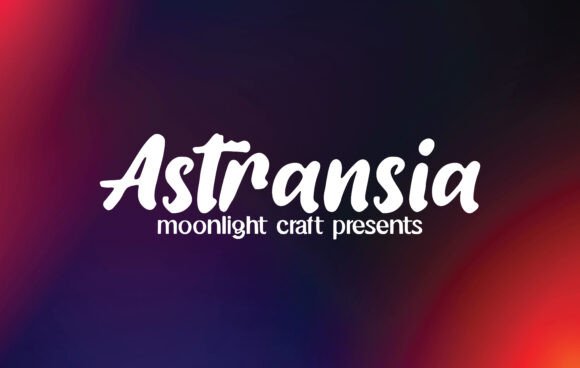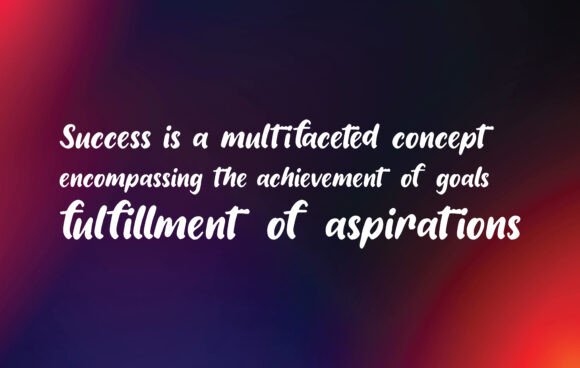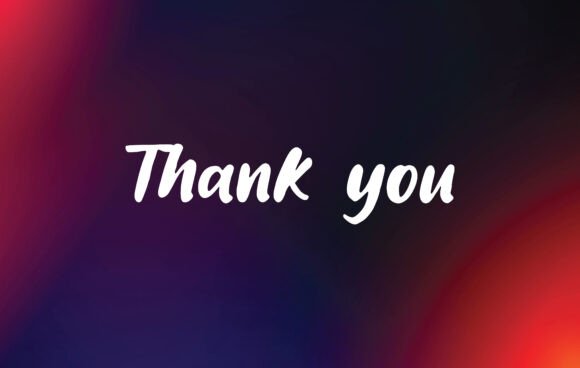
Astransia Font: A Beautiful Handwritten Script for Modern Branding
About the Astransia Font
Add a touch of class to your work with the Astransia Font, a truly exceptional typeface. Astransia is a lovely and beautiful handwritten font.This font has the potential to take your creative ideas to the highest level.It is the best choice for creating eye catching logos, branding and quotes.
Astransia’s handwritten style excels in short, impactful applications such as logos, headlines, and short quotes where its elegant flourish can shine. It’s ideal for branding projects aiming for a sophisticated, slightly whimsical feel, or packaging that needs a touch of handcrafted charm. However, its low x-height and varying stroke weights make it unsuitable for extended body text or UI elements where readability is paramount.
Pairing Astransia with a clean sans-serif like Lato or Open Sans provides a strong contrast, balancing its organic feel with modern clarity. For a more traditional feel, a classic serif such as Garamond or Georgia would complement its graceful curves. Avoid pairing it with other highly decorative scripts, as this could lead to visual clutter.
Astransia projects an overall personality of elegant playfulness. It’s a font best suited for brands and projects requiring a balance of sophistication and approachability, perhaps in the fashion, beauty, or lifestyle sectors.